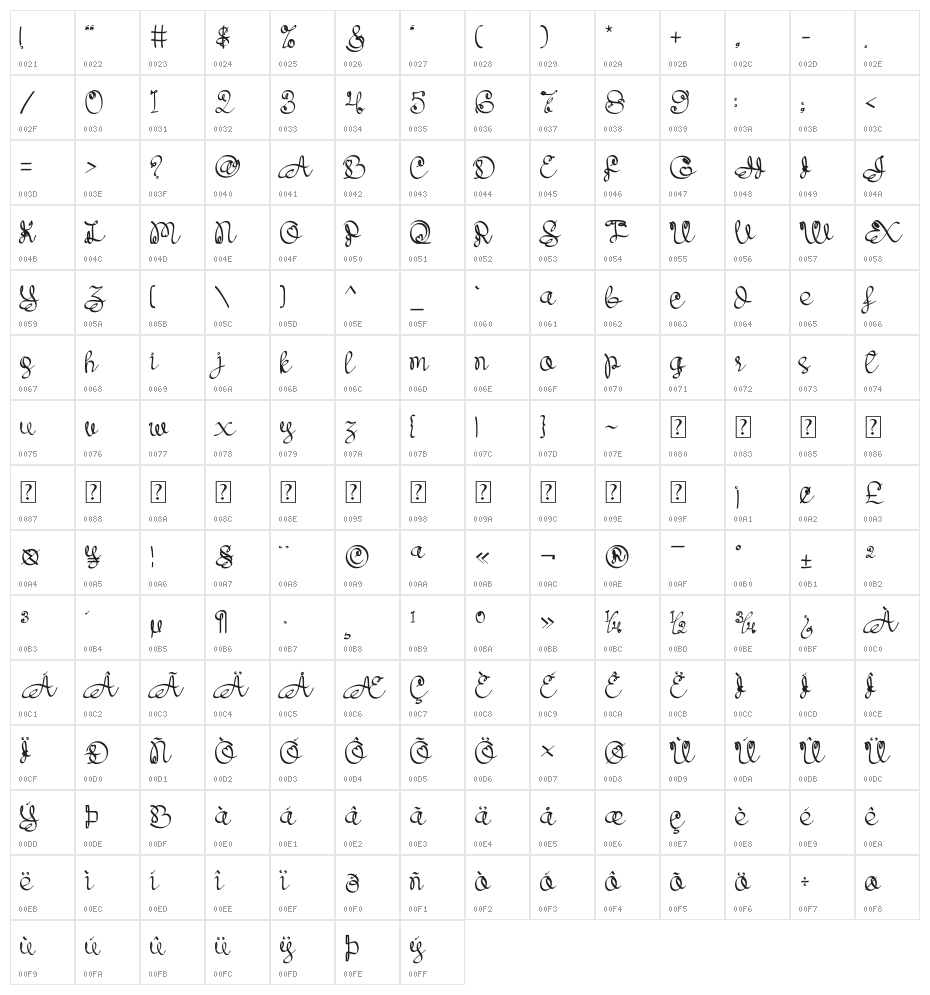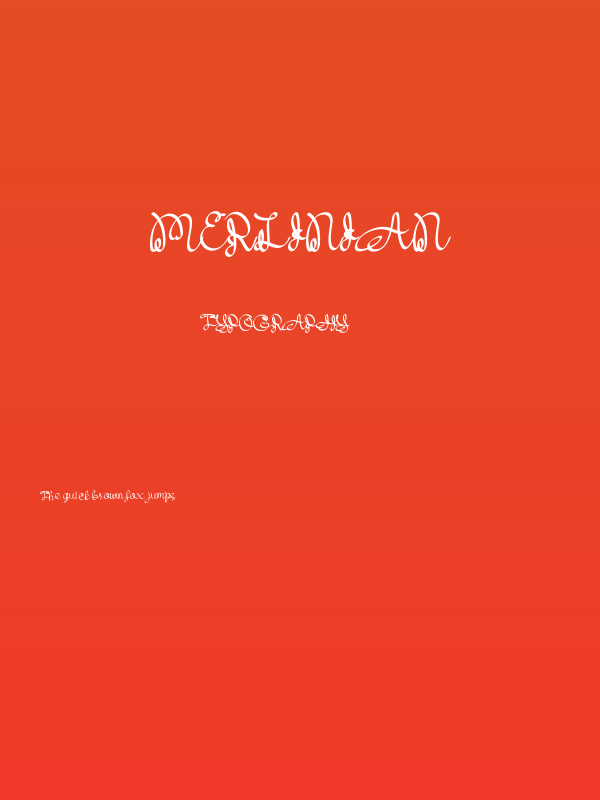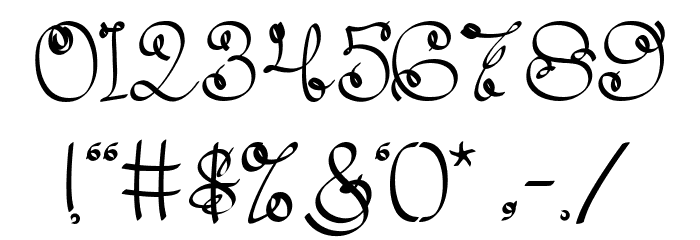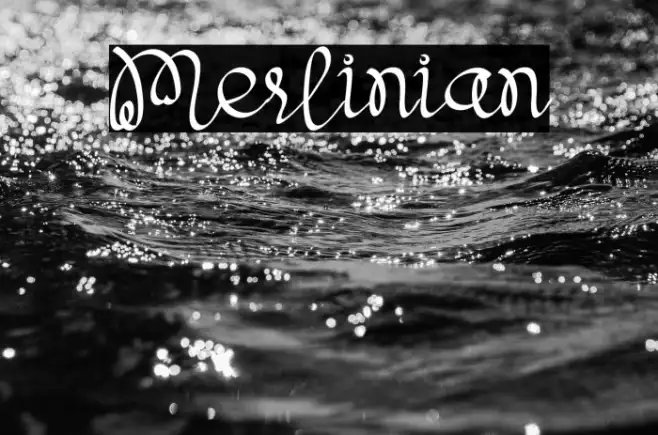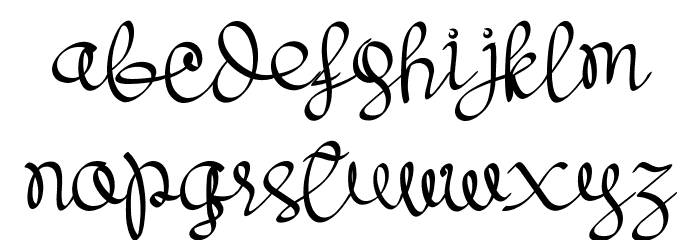
Merlinian Font
Merlinian Description
This font features an elegant and whimsical script style, characterized by its flowing, interconnected letters and decorative swirls. The uppercase letters are particularly ornate, with loops and curls that add a sense of movement and grace. The lowercase letters maintain this fluidity, offering a consistent and harmonious look. Numbers and special characters are equally embellished, ensuring a cohesive appearance across all text elements. The overall design exudes a sense of fantasy and charm, making it suitable for creative and artistic projects.
| Proposed Projects | Ideal for wedding invitations, greeting cards, branding for luxury products, and artistic projects requiring a touch of elegance. |